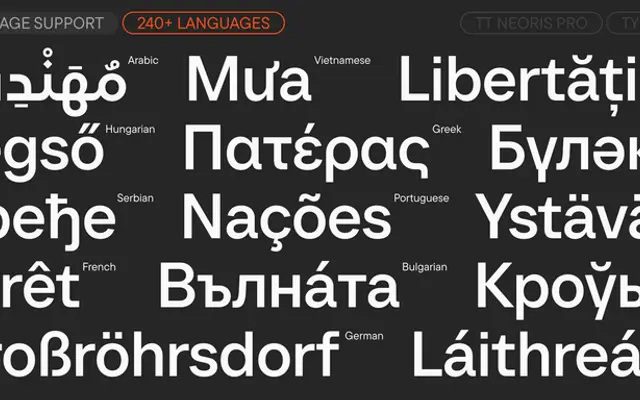
TT Neoris Pro
A neo-grotesque from TypeType developed over two and a half years, spanning 21 styles with extensive OpenType features and broad script coverage including Latin, Cyrillic, Greek, Arabic and Vietnamese.
Built around research into what an archetypal contemporary grotesque should look like, the family runs from Hairline to Black with matching italics and a variable font package. Italic styles are drawn slightly narrower than the uprights, with an optional stylistic set of true italic Cyrillic forms honouring calligraphic tradition. Version 2.000 adds Greek, Vietnamese and an Arabic variant combining Kufi and Naskh influences with minimalist, humanist-touched terminals.
Explicitly described as a neo-grotesque throughout the page, with neutral character, archetypal letterforms and upright-to-italic ratio typical of the genre. Extensive stylistic sets and Cyrillic calligraphic italic forms add depth without departing from the category.